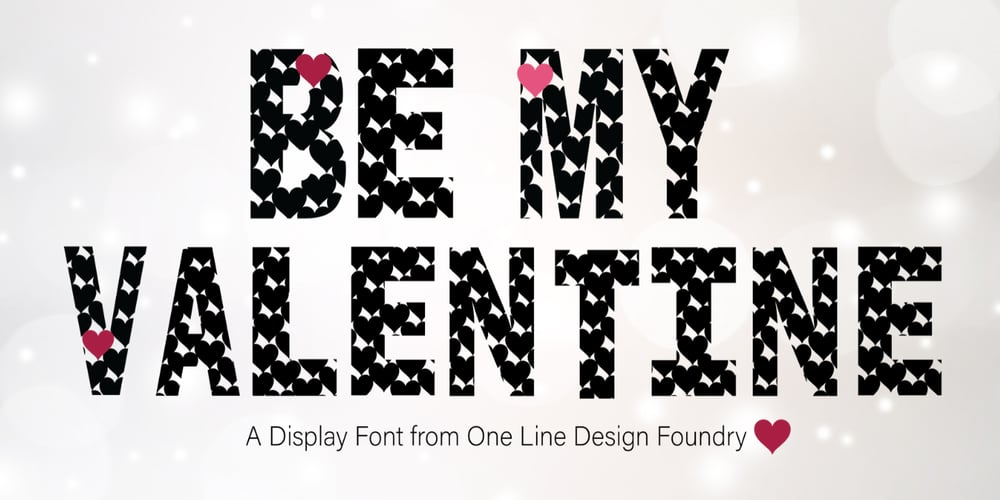
Be My Valentine Font Family was designed by Brenna Ricci and published by One Line Design. Be My Valentine contains 1 styles and family package options. Spread a little love with the Be My Valentine display font. These capital letters are filled with love. 82 Glyphs. Letters A-Z, Numbers 0-9, Punctuation!?.’ In both Black & transparent (white) and black with colored heart. A-Z glyphs with colored heart are in lower case, check compatibility for colored fonts.